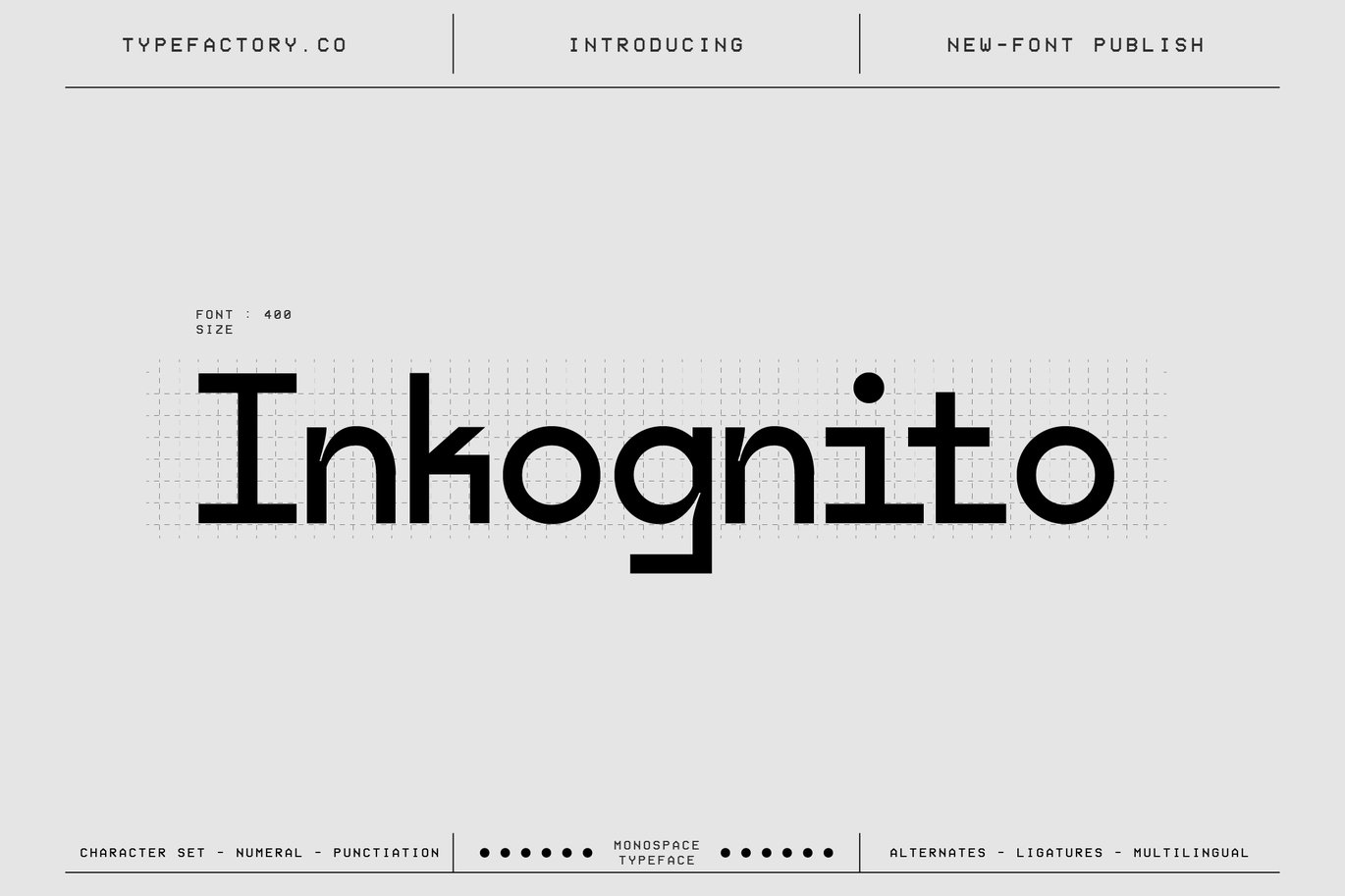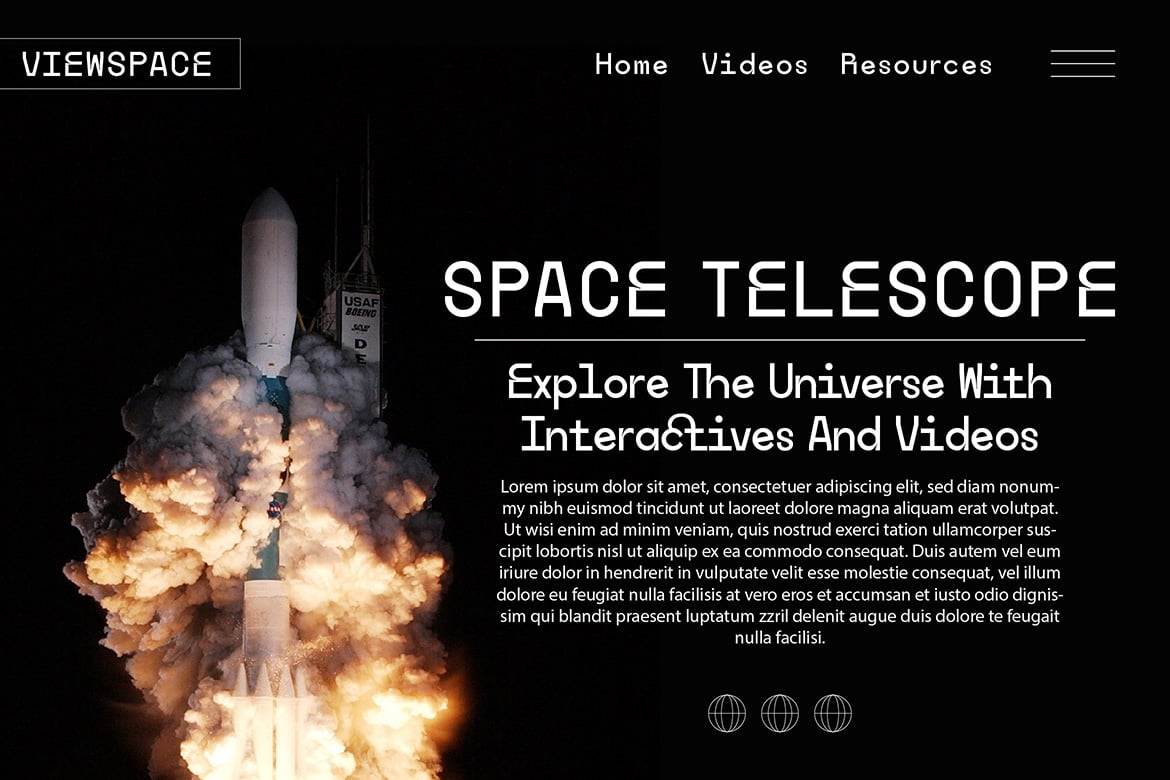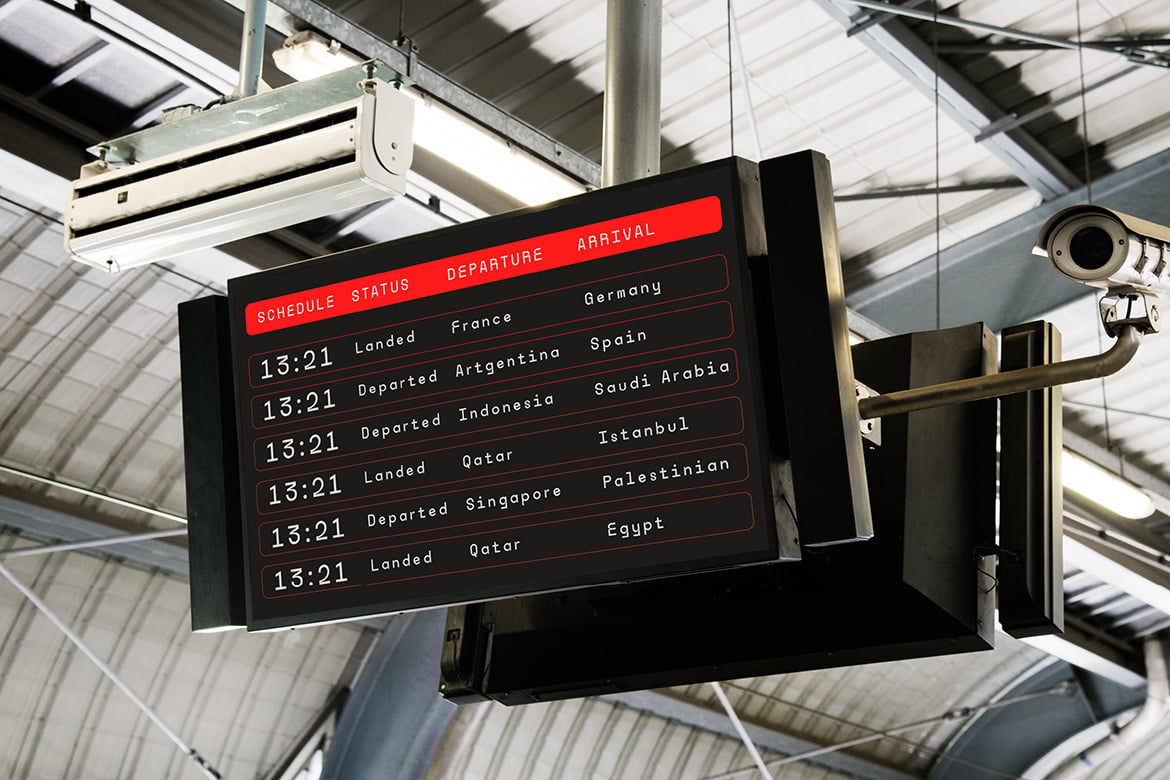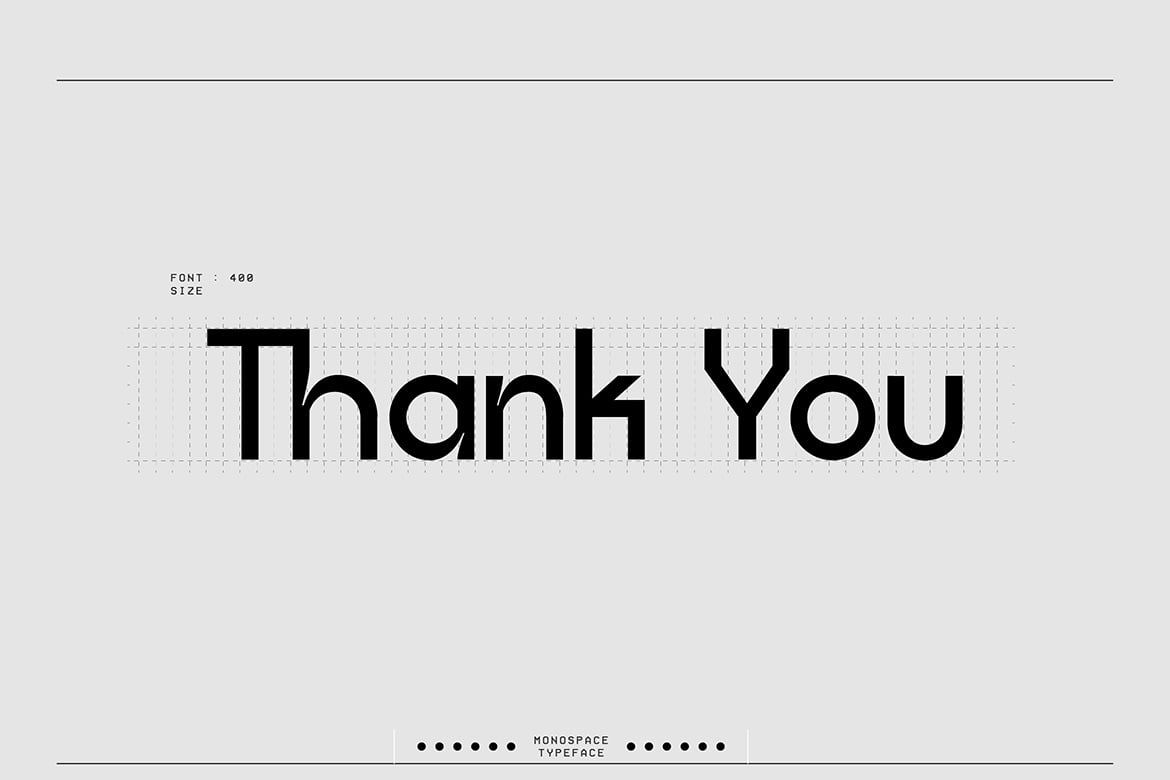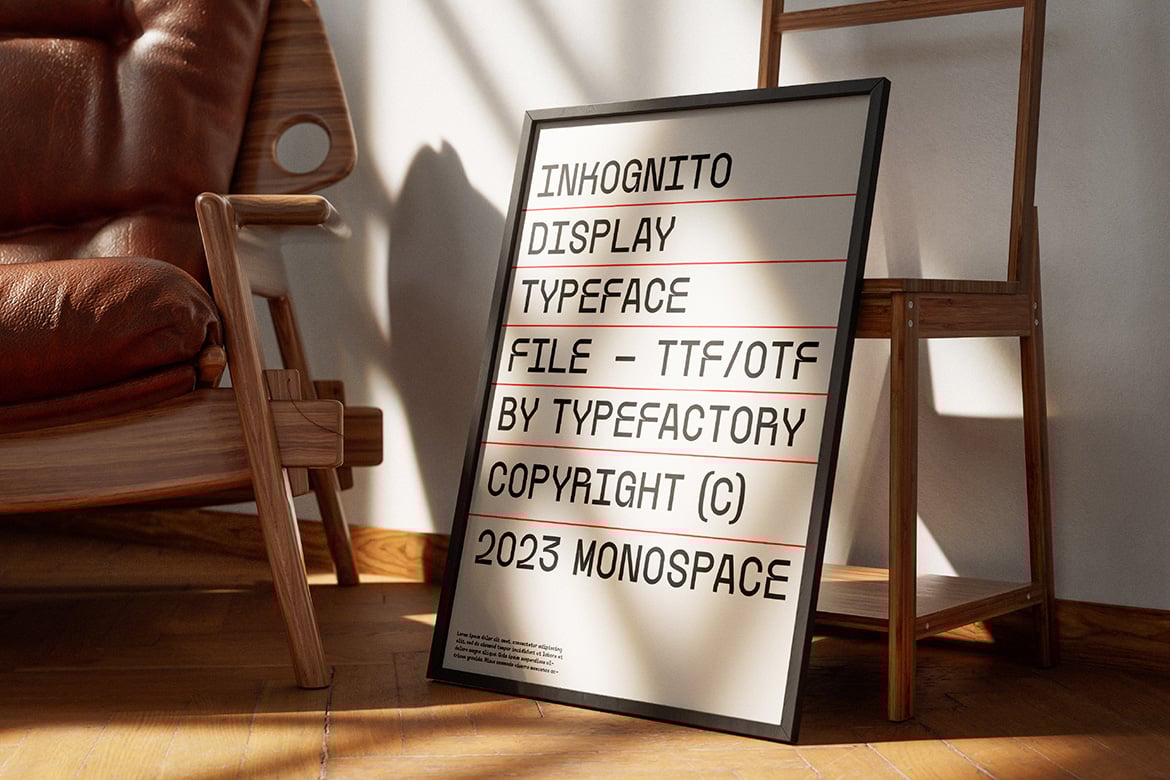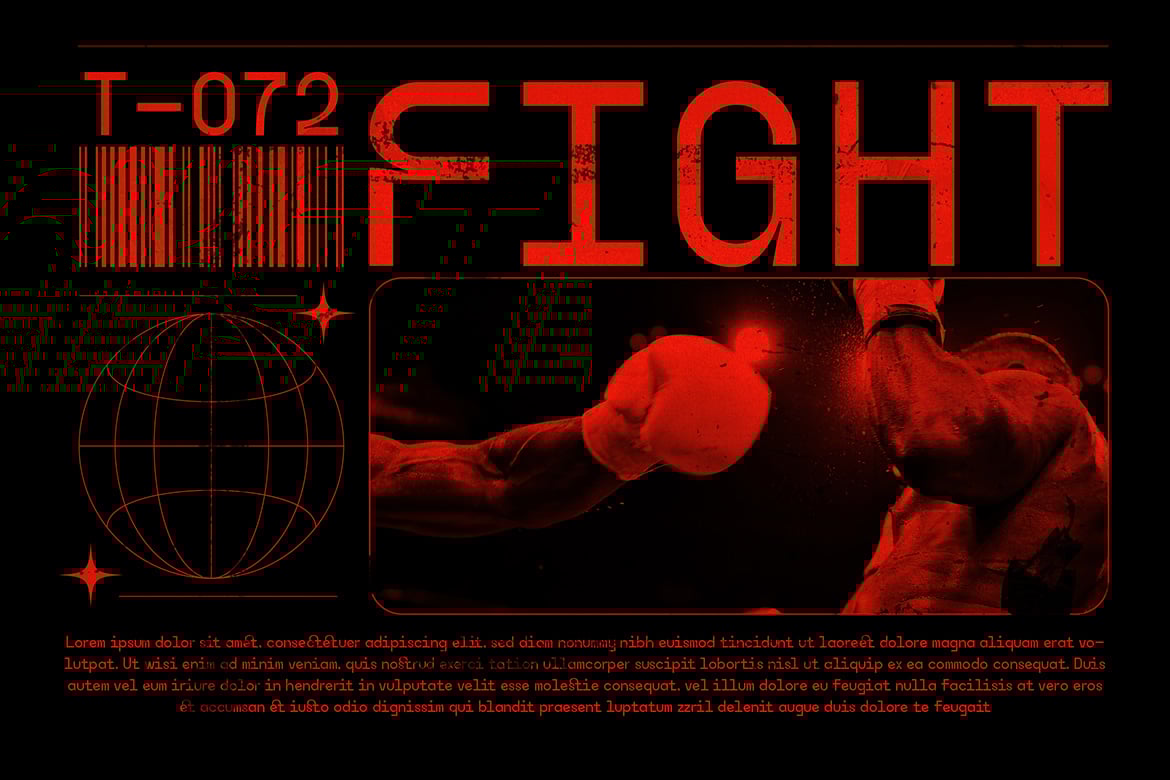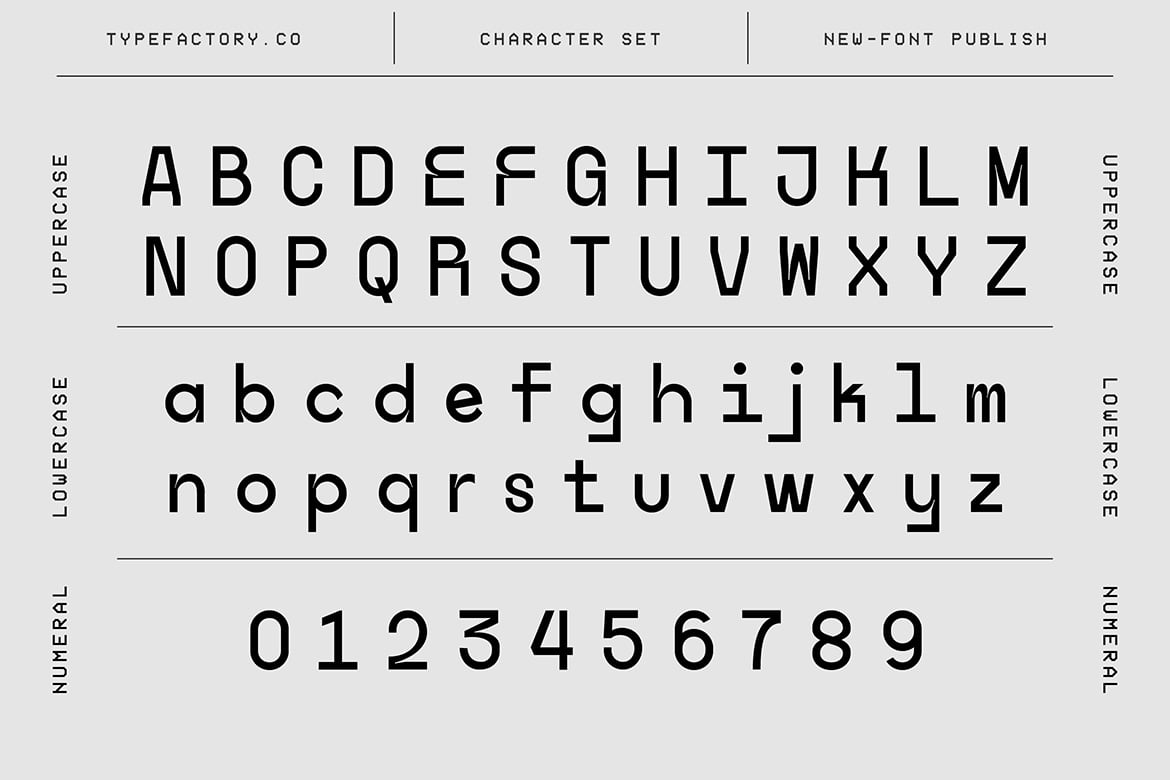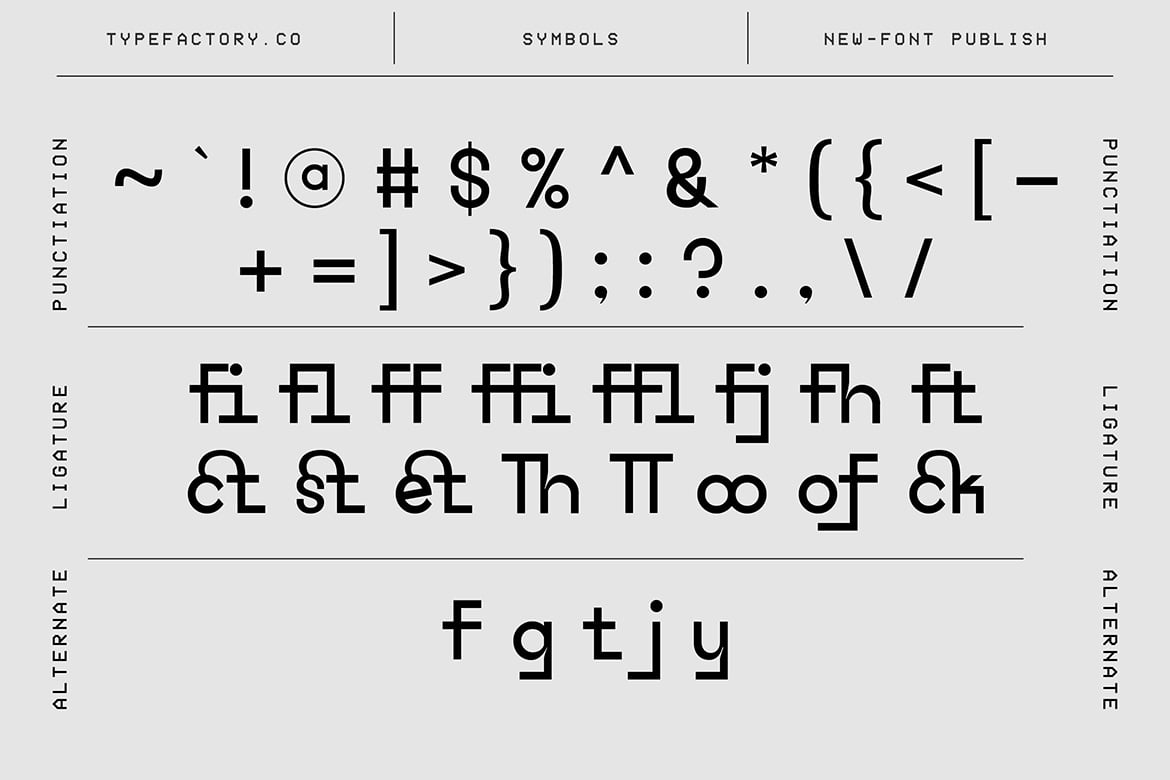
Inkognito – Monospace Typeface
Inkognito is a distinctive monospace typeface that combines the precision of fixed-width characters with a modern, tech-inspired aesthetic. Its uniform letterforms make it ideal for coding, tech branding, user interfaces, and editorial layouts where consistency and legibility are key. Inkognito’s minimalist and structured design evokes a sense of order and functionality while maintaining a contemporary edge. Perfect for both digital and print media, this typeface brings clarity and style to any project with its clean and methodical approach.